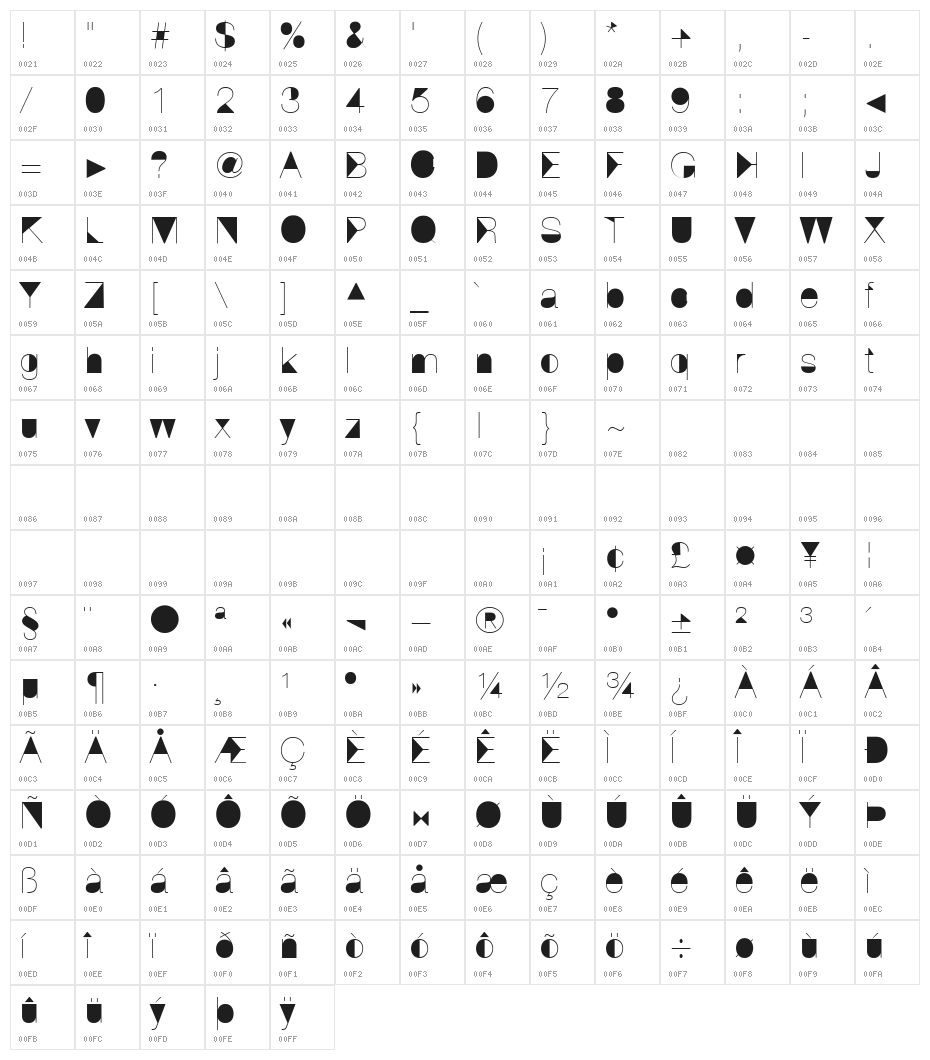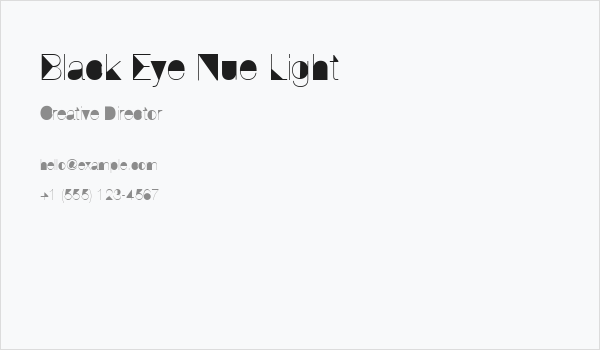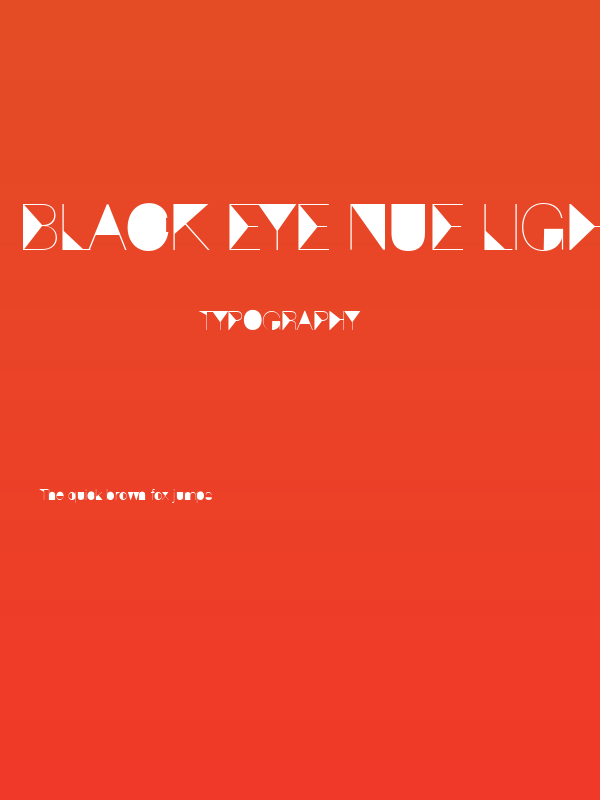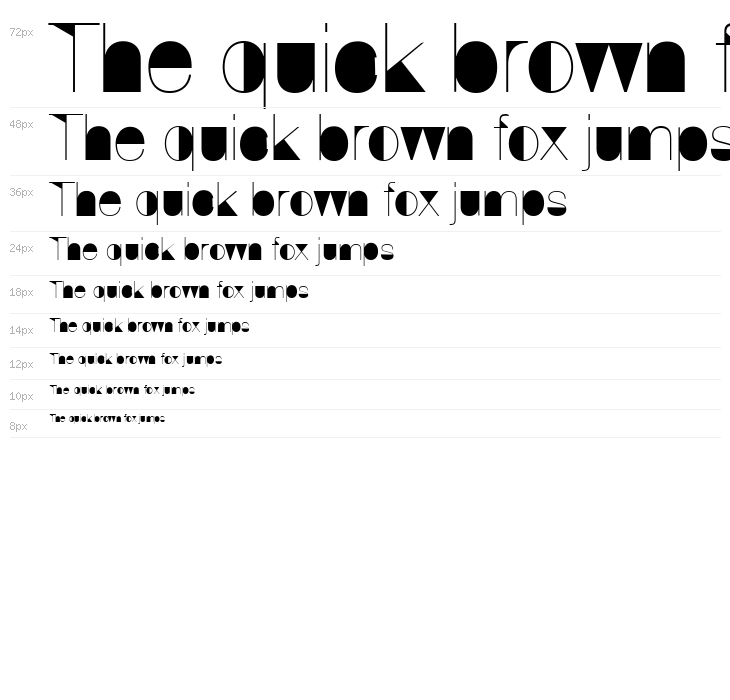
Black Eye Nue Light Font
Black Eye Nue Light Description
This font features a unique blend of geometric shapes and clean lines, creating a modern and artistic appearance. The uppercase letters are characterized by bold, angular forms with some letters incorporating circular elements, adding a dynamic contrast. The lowercase letters maintain a minimalist style with consistent stroke widths, offering a sleek and contemporary look. The numerals are distinct and easily readable, with a mix of straight and curved lines. Special characters are designed to complement the overall aesthetic, making this font versatile for various design applications.
| Overall Style | Modern, Geometric |
| Proposed Projects | Ideal for branding, logos, posters, and modern web design projects. |